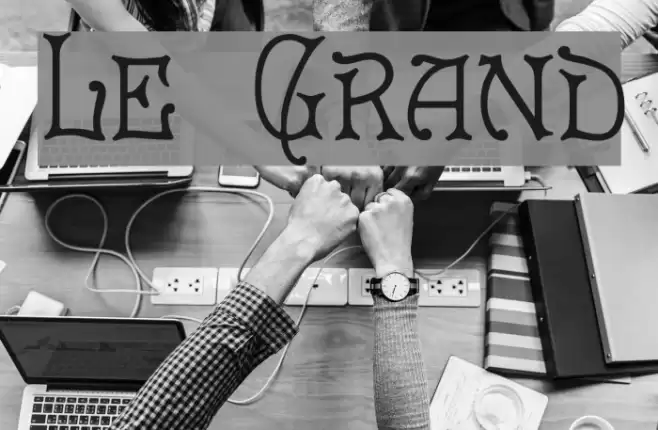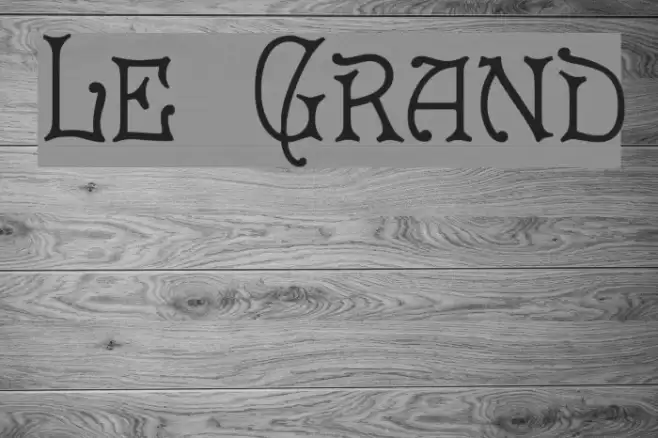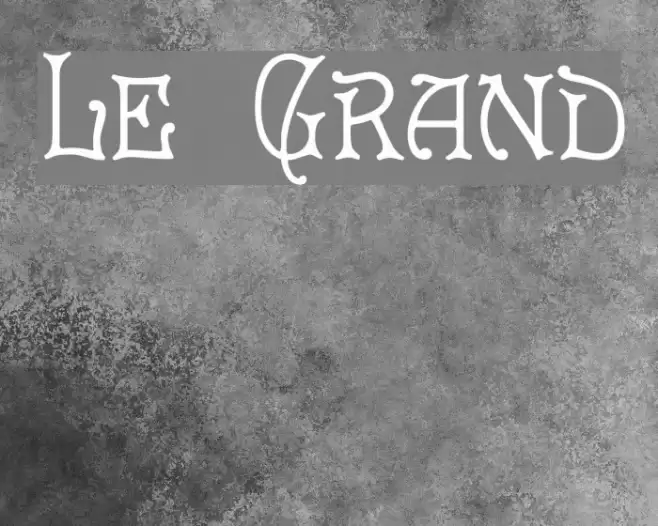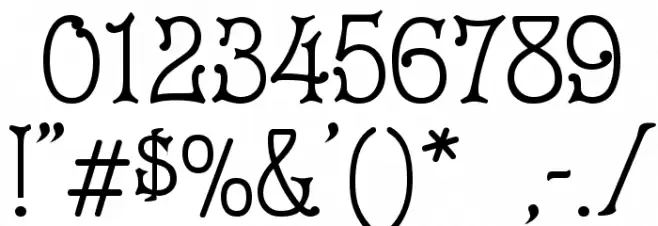
Le Grand Font
Le Grand Description
This font features an ornate and decorative style, characterized by its intricate serifs and flourishes. The uppercase letters are particularly elaborate, with unique curves and extensions that give them a regal and sophisticated appearance. The lowercase letters maintain a consistent style, complementing the uppercase with slightly less ornamentation. Numbers and special characters are designed to match the overall aesthetic, ensuring a cohesive look across all glyphs. The font's distinctiveness makes it suitable for projects that require a touch of elegance and historical flair.
An ornate and decorative serif font with intricate details from Uncategorized fonts.
- Proposed Projects: Ideal for wedding invitations, historical-themed designs, luxury branding, and decorative book covers.
- Overall Style: Vintage